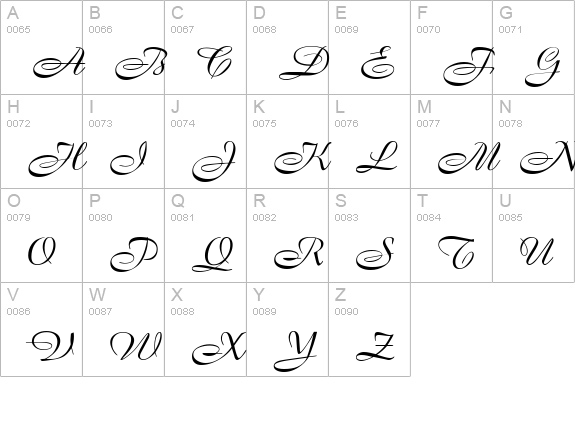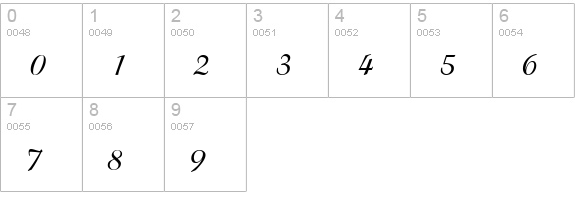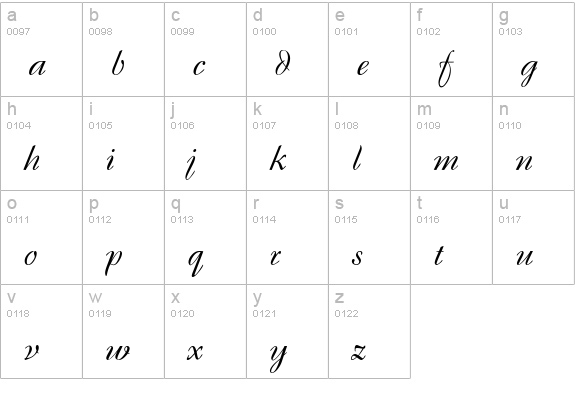
B820-Script-Regular Font Details
B820-Script-Regular is the standard, neutral variant in the B820 typeface family \xE2\x80\x94 well suited to general body text, paragraphs, and standard typographic work.
B820-Script-Regular is a beautifully crafted font that exudes elegance and sophistication. Its flowing curves and smooth lines give it a timeless quality that is perfect for adding a touch of class to any project. Whether you're designing invitations, logos, or signage, this versatile font is sure to make a statement. What's even better is that B820-Script-Regular is available for free download at FontsMarket.com. You can easily access this stunning font and elevate your design projects without any cost. Don't miss out on this opportunity to enhance your creations with the beauty and grace of B820-Script-Regular. Download it today and let your creativity soar!